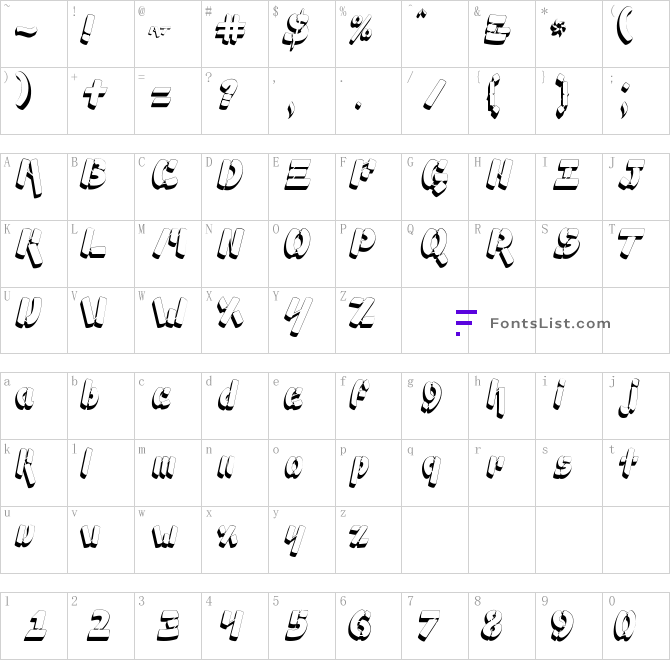
- Font Name:Ampad 3D2
Ampad-3D2-Regular.ttf is a very beautiful artistic font, Ampad-3D2-Regular.ttf is widely used in the design and printing of various books and pictures,Ampad-3D2-Regular.ttf has a strong visual impact,Ampad-3D2-Regular.ttf is a commonly used font in newspapers, magazines and books, and is used in posters, e-commerce Poster design, store design, logo design, font design and other fields.Ampad-3D2-Regular.